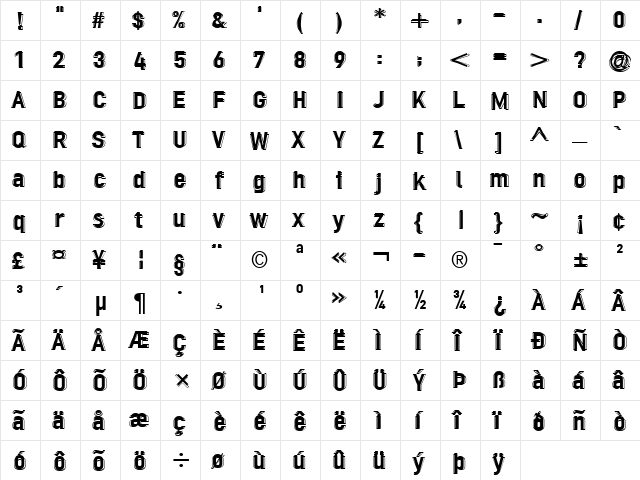
LinotypeOrdinar Double Regular
| Foundry | Linotype Library GmbH or ist affiliated Linotype-Hell companies |
Design Context for LinotypeOrdinar Double Typeface
LinotypeOrdinar Double is a composed and adaptable typeface that performs quietly and consistently across a wide range of design contexts.